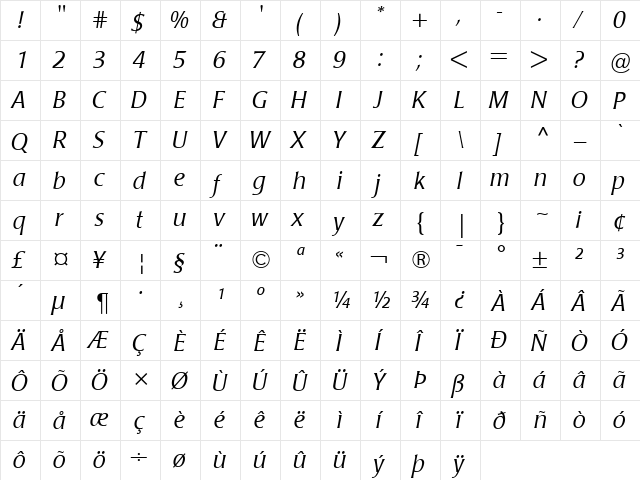
Poppl-Laudatio Italic
Design Context for Poppl-Laudatio Typeface
Poppl-Laudatio offers clean, dependable letterforms without strong stylistic allegiance, making it a practical choice for designers who need flexibility. The slanted form adds forward momentum and visual energy.
Pro Tip: Use Poppl-Laudatio for emphasis, pull quotes, and subheadings where its slanted energy can add rhythm to the layout.